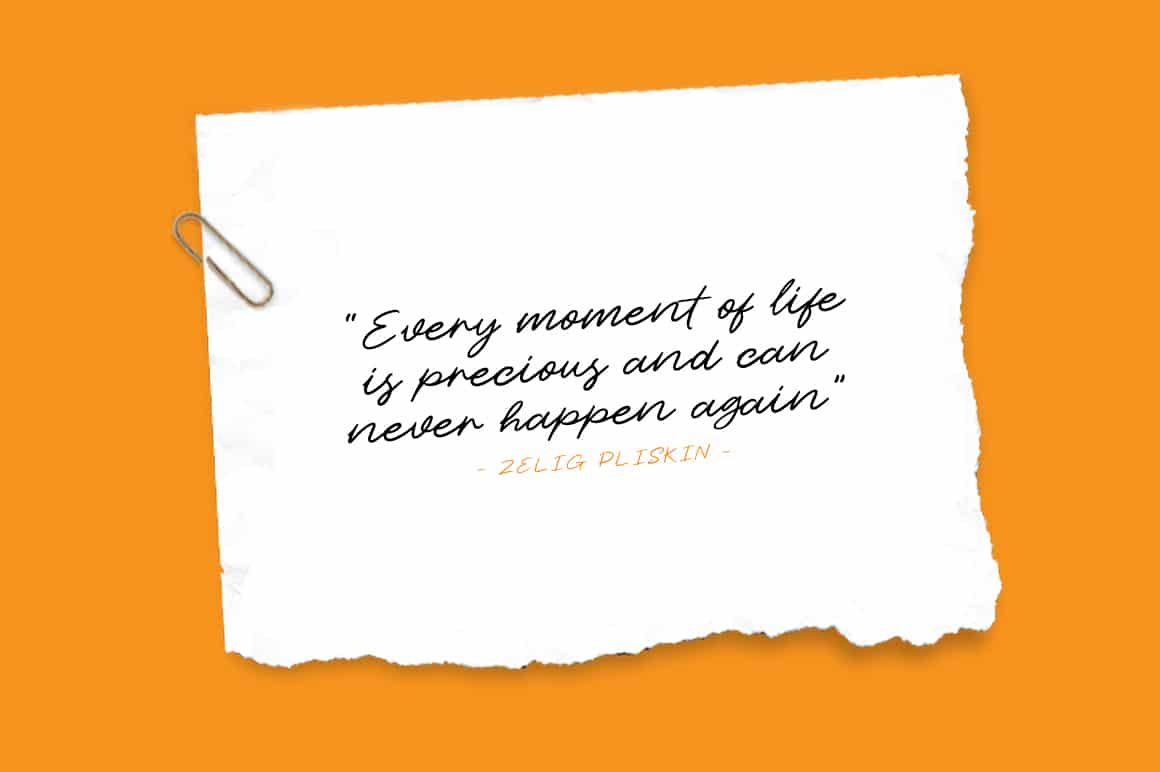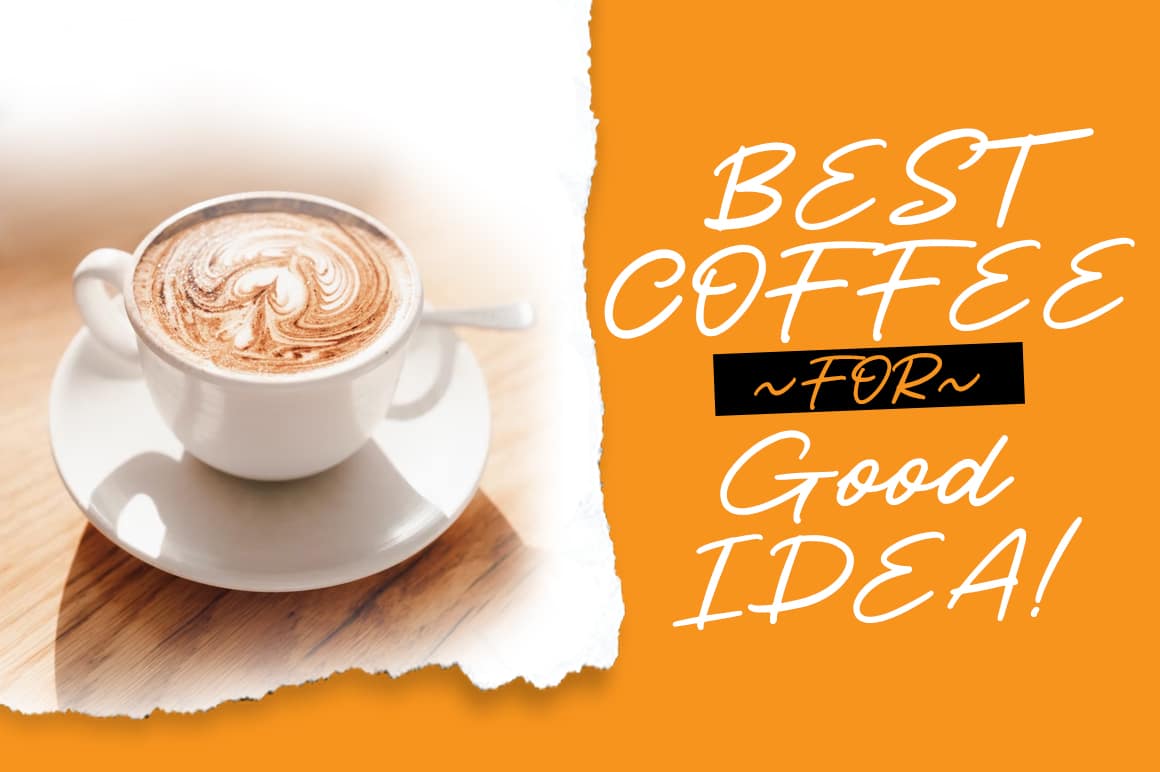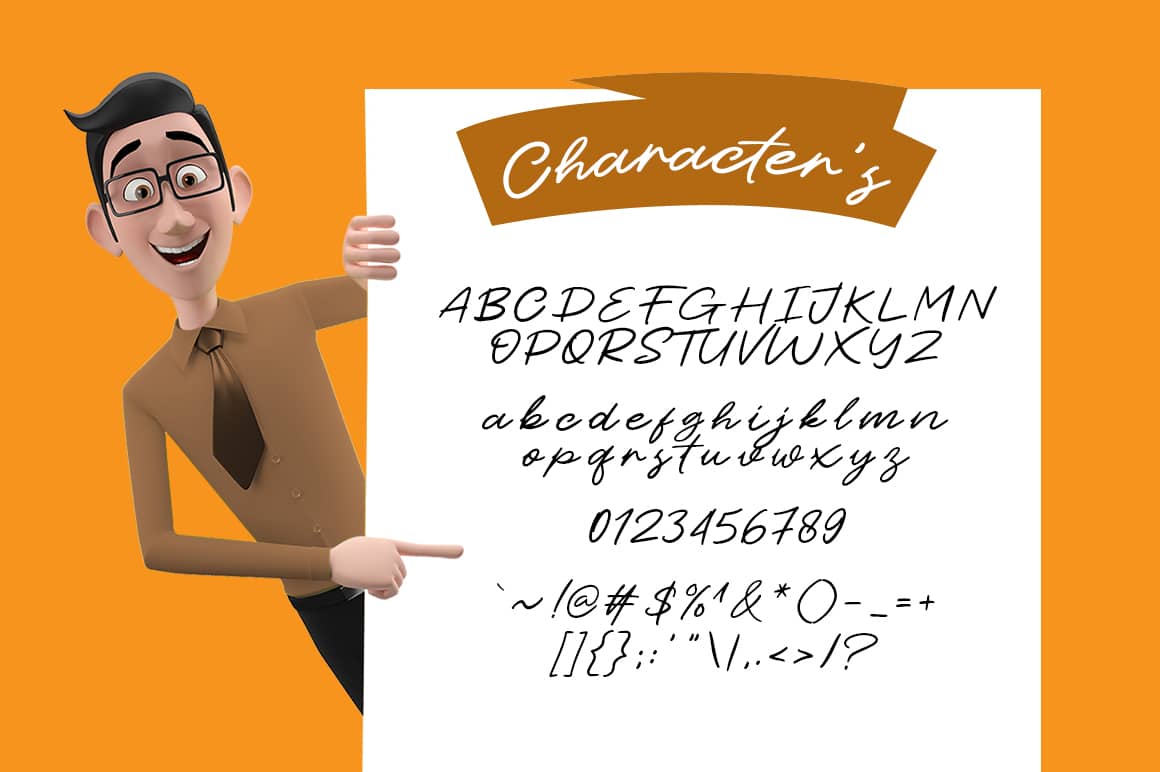
Cetary Font
Cetary is a modern script font perfect for posters, logos, magazines, book covers, banners, and many more! Get this amazing font, and use it to create lovely designs!